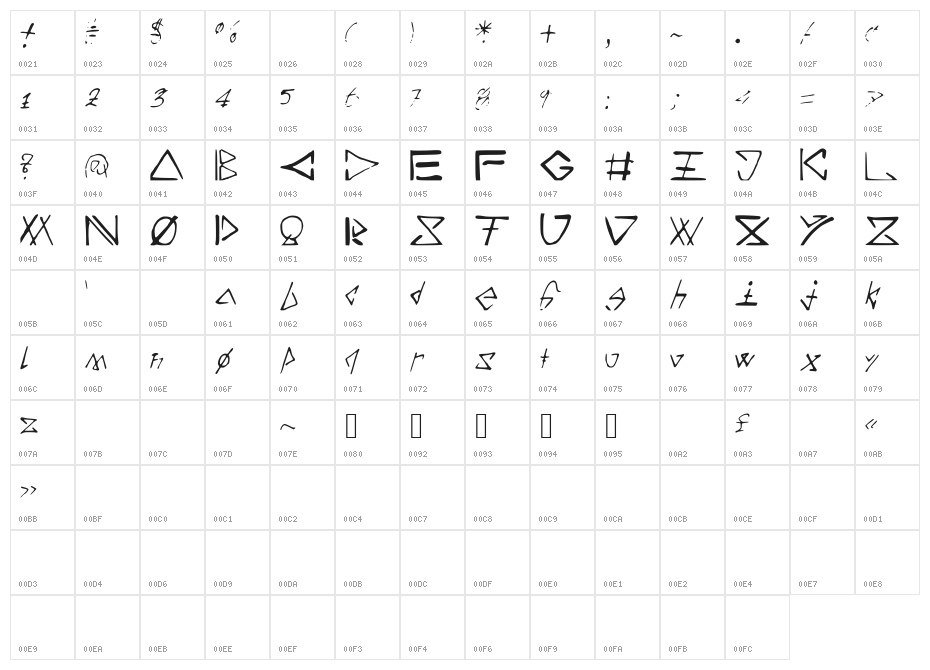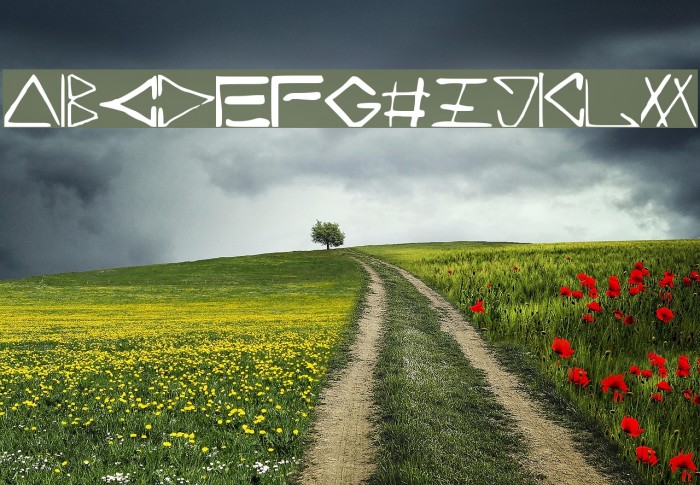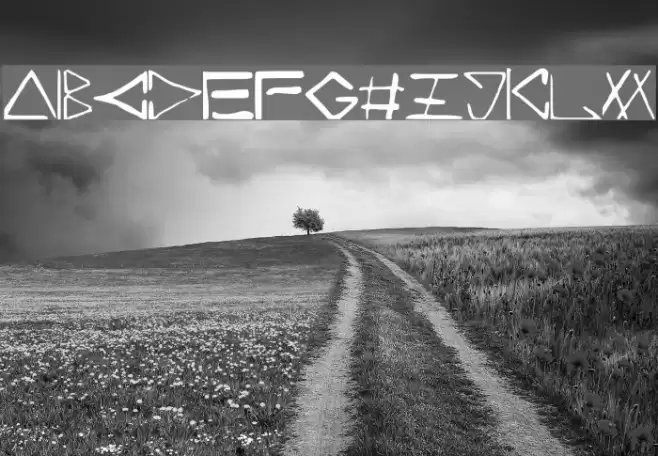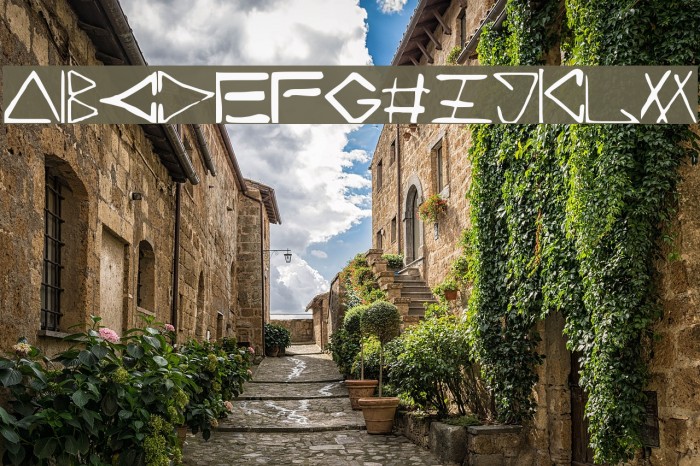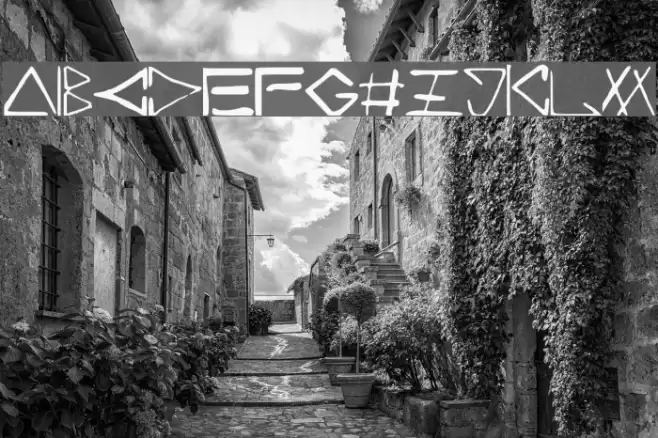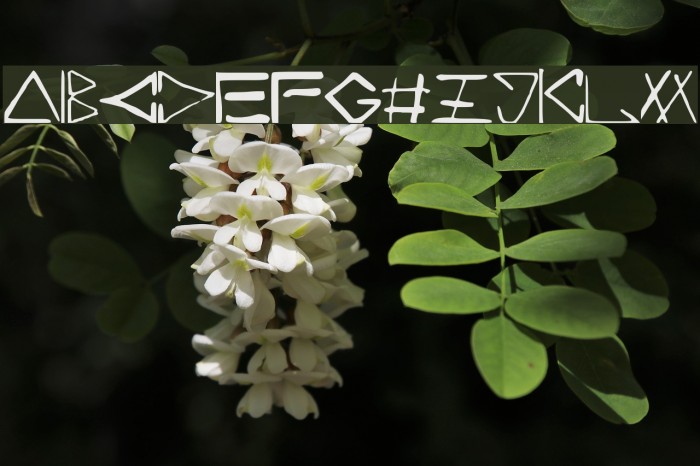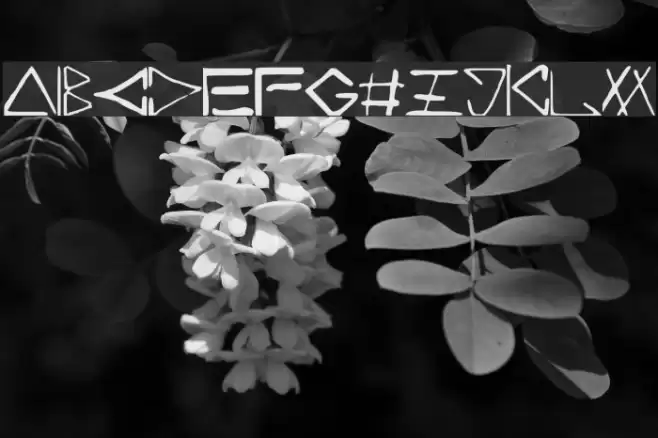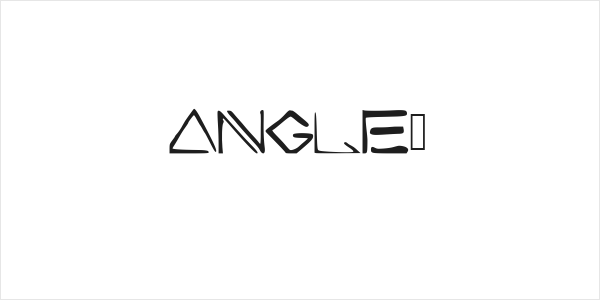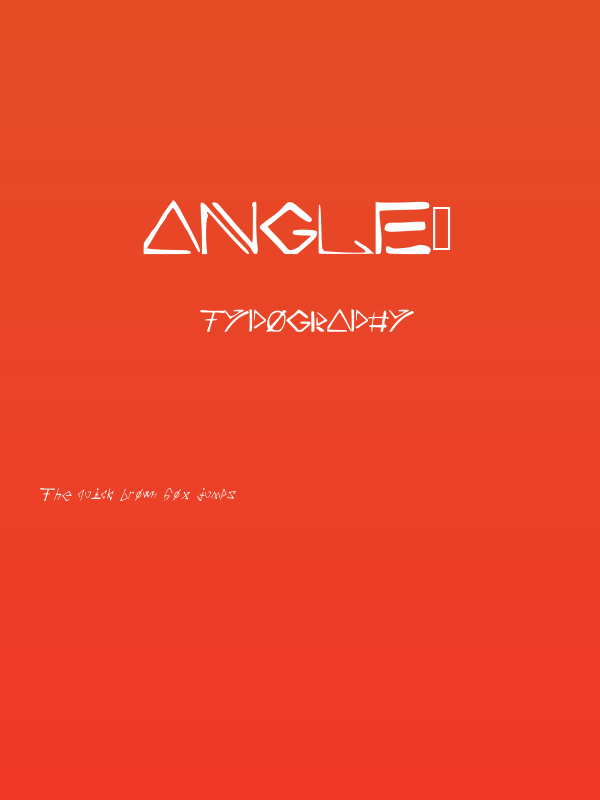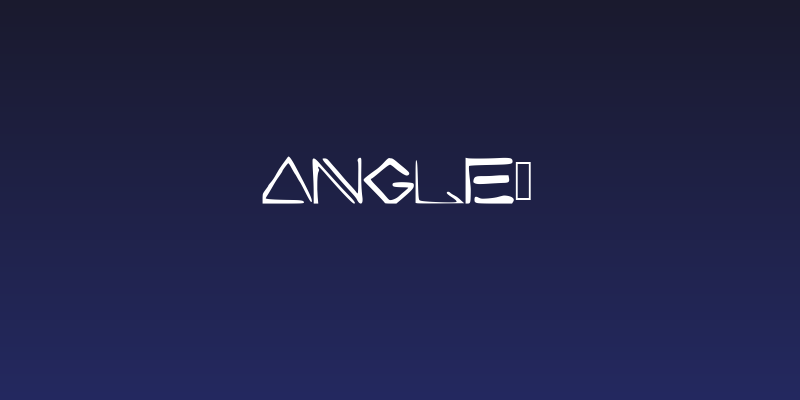
ANGLE_ Font
ANGLE_ Description
This font features a highly stylized and angular design, characterized by its sharp edges and geometric shapes. The uppercase letters exhibit a futuristic and abstract appearance, while the lowercase letters maintain a more fluid and dynamic form. The numerals and special characters continue this theme, offering a unique and artistic flair. The overall aesthetic is bold and distinctive, making it suitable for creative and unconventional projects. The font's design is both eye-catching and memorable, with a strong emphasis on individuality and modernity.